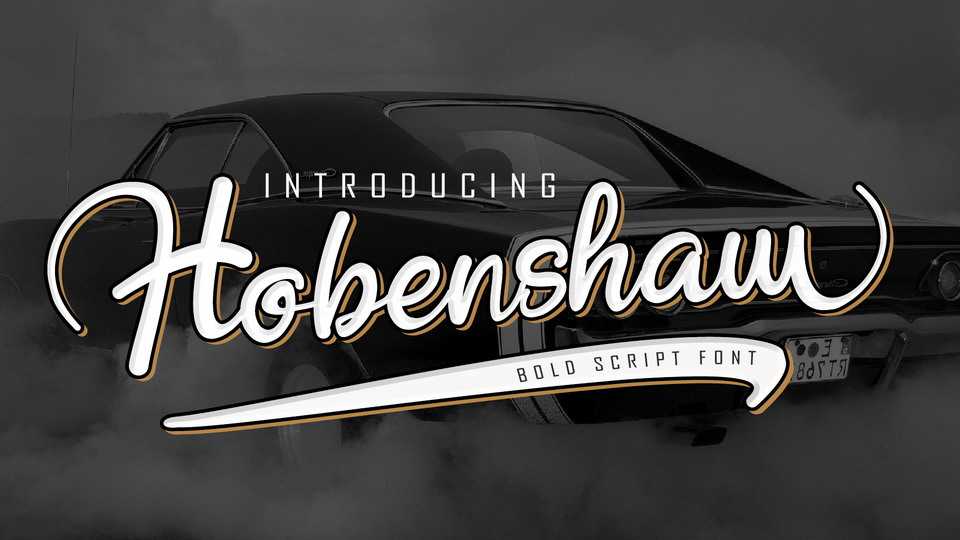
Download Hobenshaw font, a hand drawn script with a lot of unique charm. With a lot of alternates and swashes Hobenshaw looks great for a design that stands out even if it’s a logo, or simply a stylish text over an background image.
Designer: Thomas Aradea